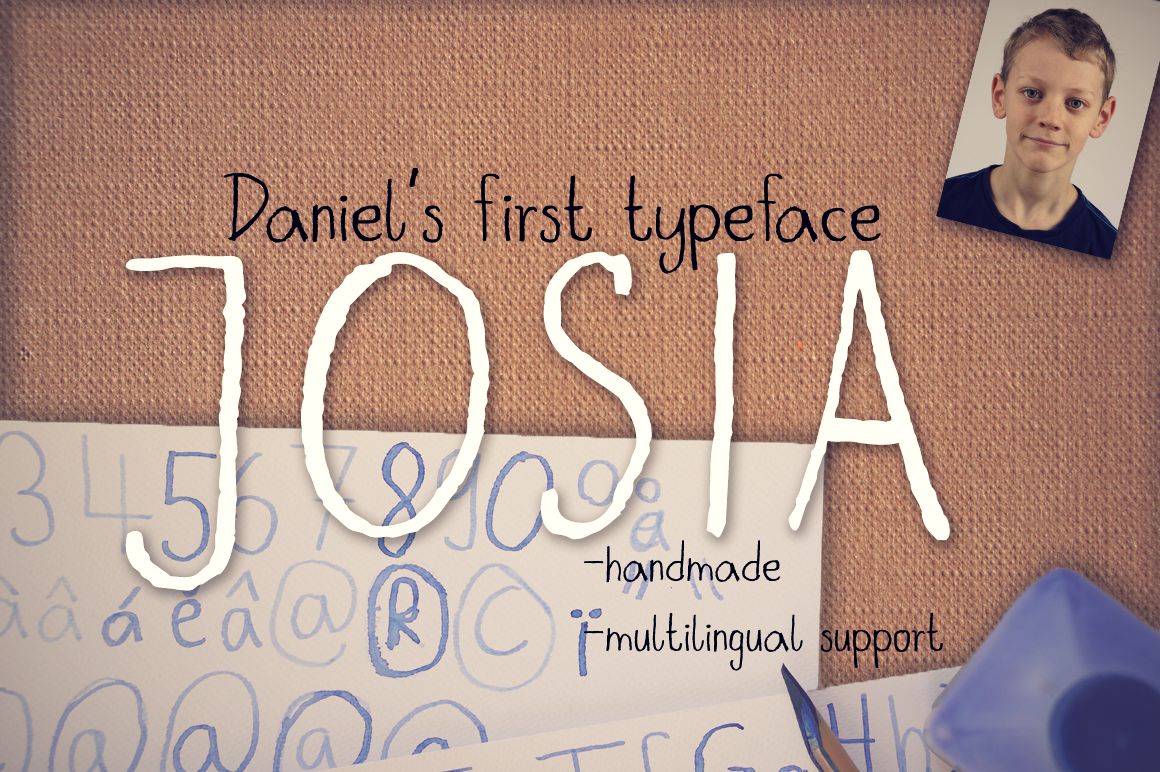
Josia Typeface
Here comes Daniel's first handmade font. After Sarah's success with Sarayon: http://crtv.mk/g0f77 , Daniel took my bamboo pen and invested a good amount of time to give it a shot, too. Named after his second name "Josia".
Open Type Font with western latin language support with nearly 300 glyphs (see panel 4).